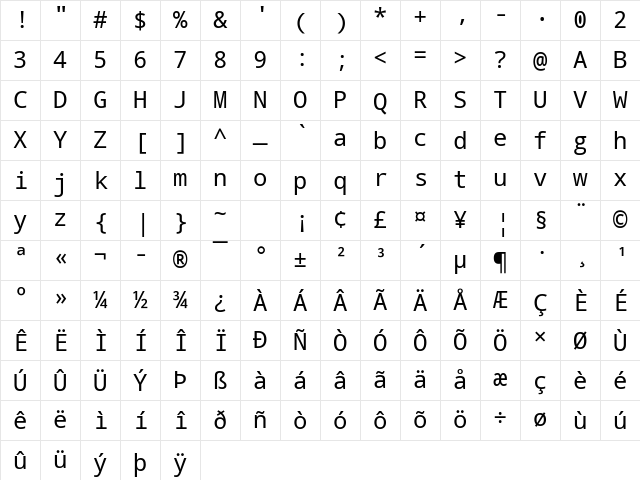
Natural Mono Regular
Designer: Vasily Draigo
Design Context for Natural Mono
Natural Mono uses fixed-width spacing throughout, giving it the structured, systematic character associated with coding environments and technical documentation.
Pro Tip: Use Natural Mono with slightly increased line-height for extended reading - fixed-width spacing can feel dense in longer passages without extra breathing room.